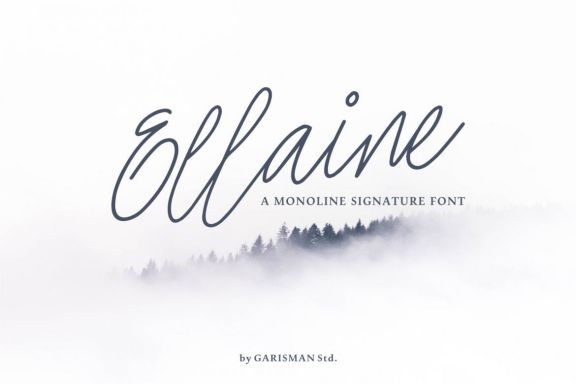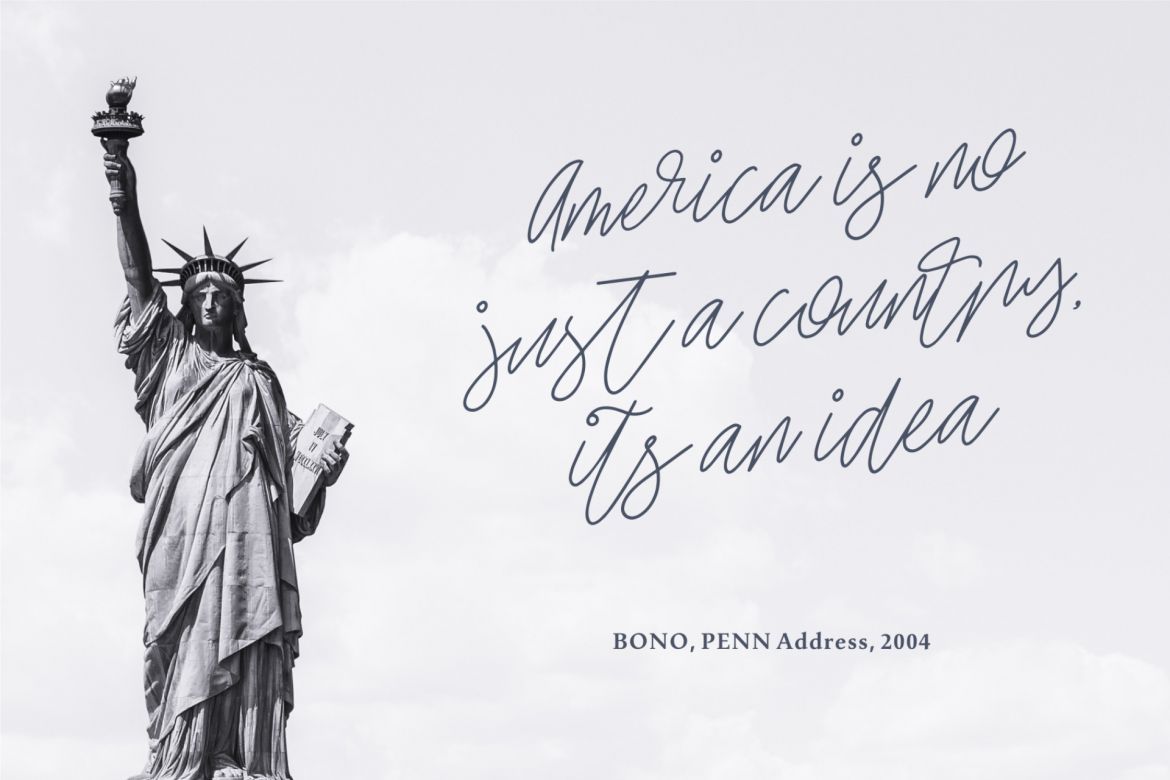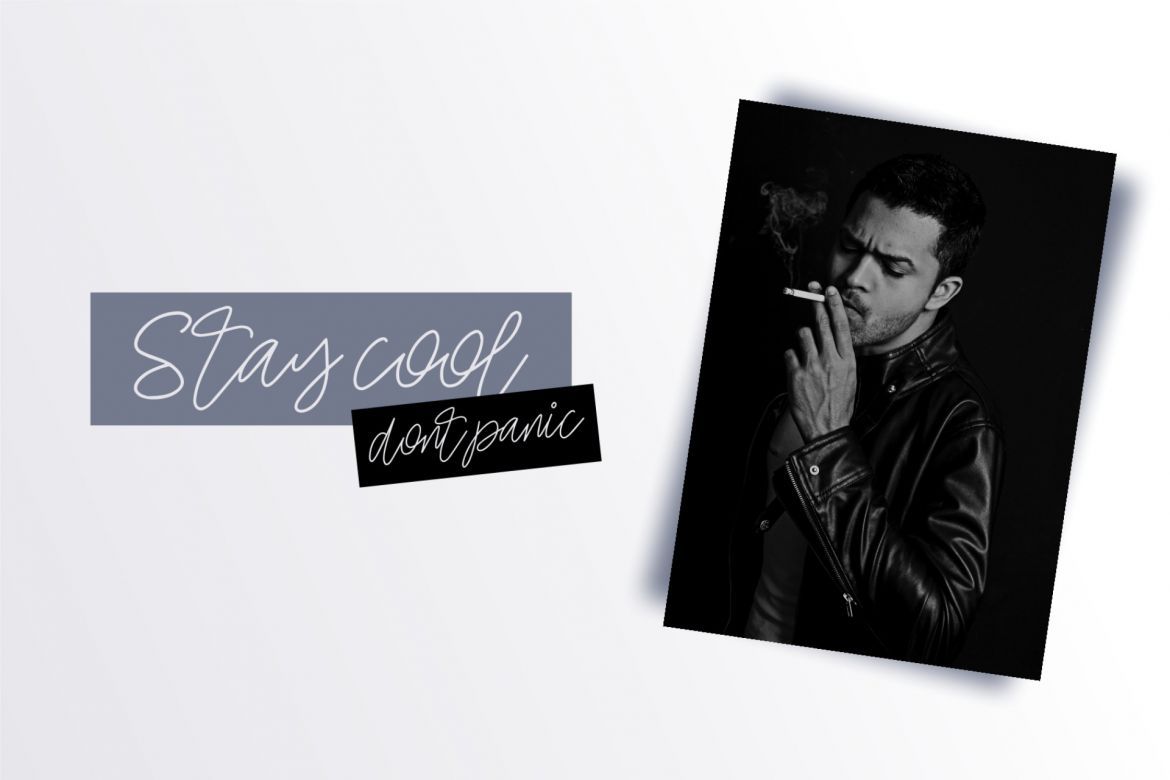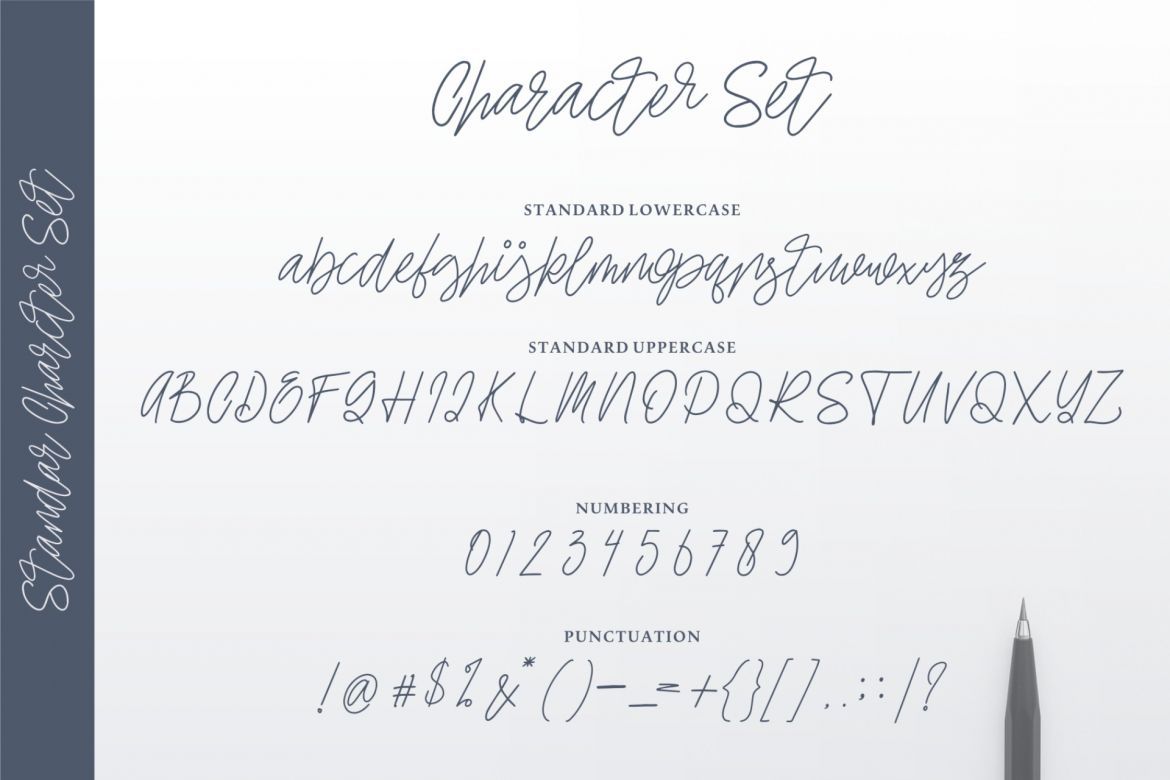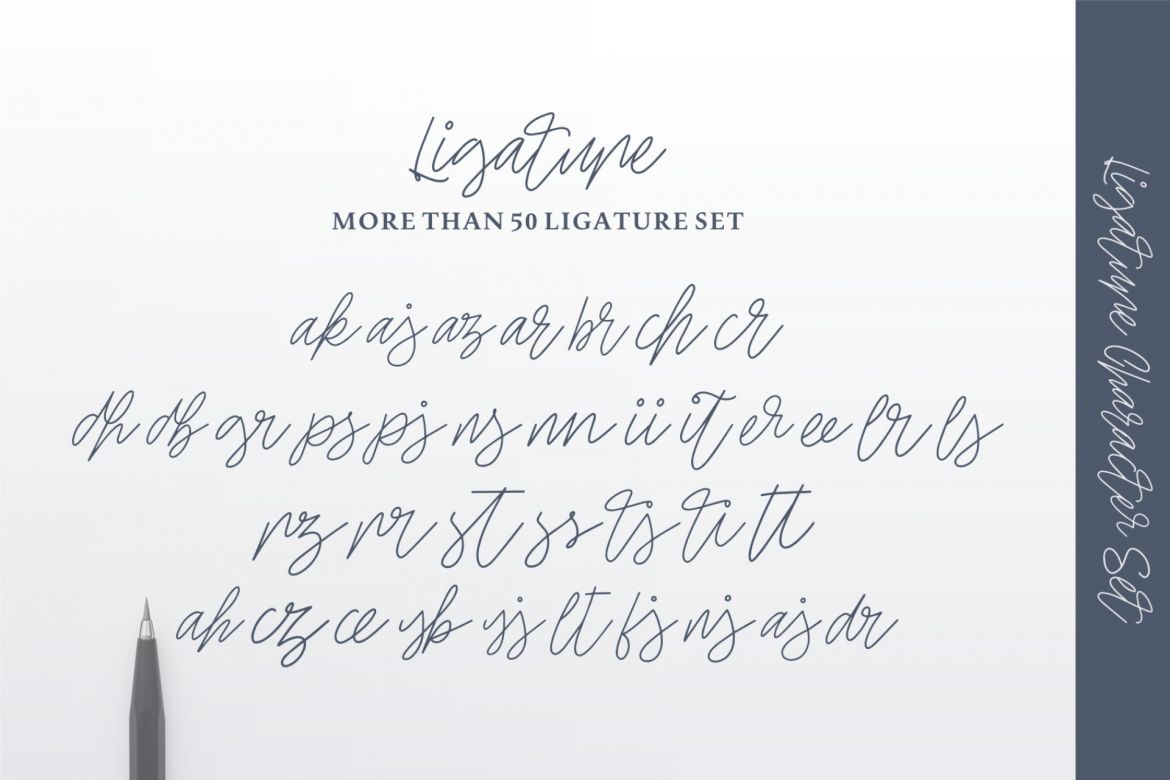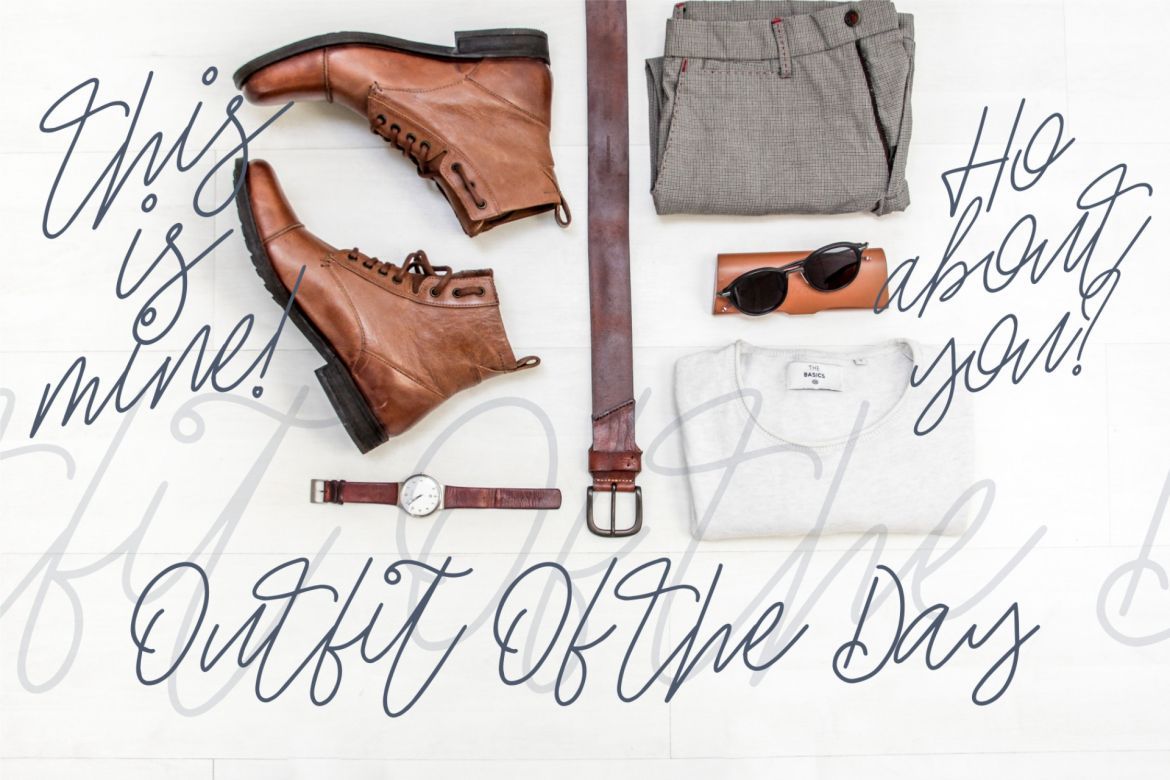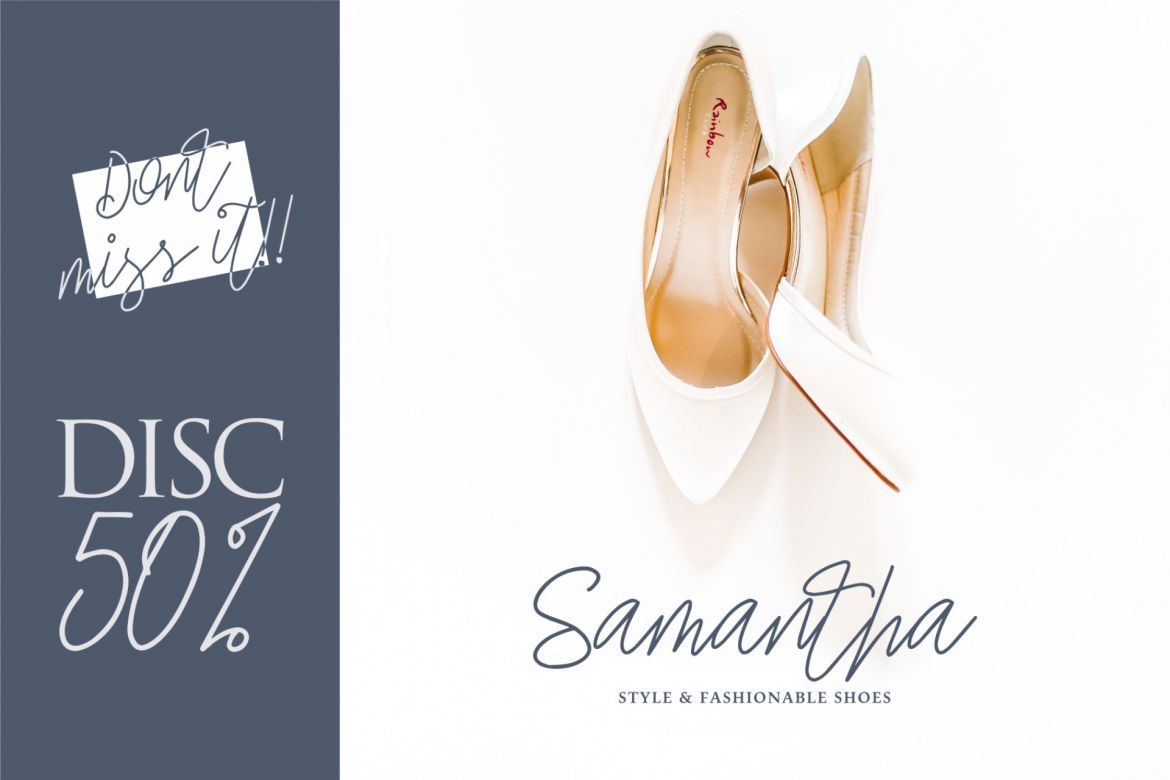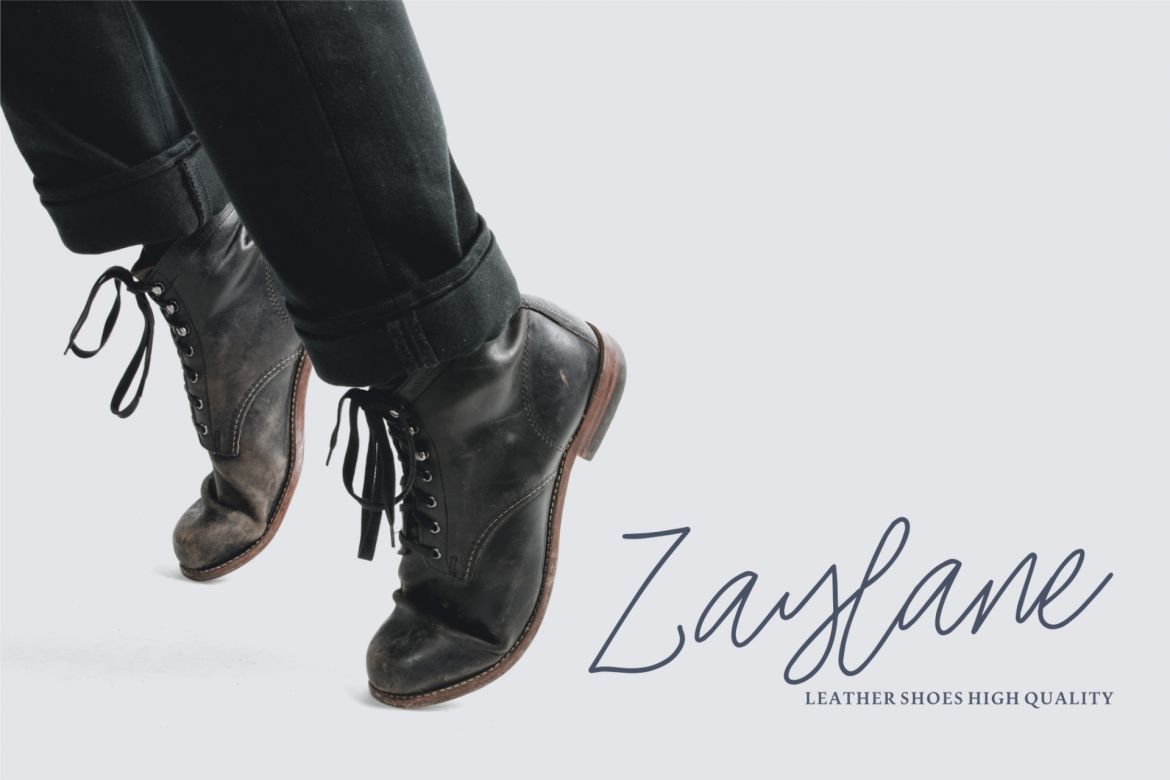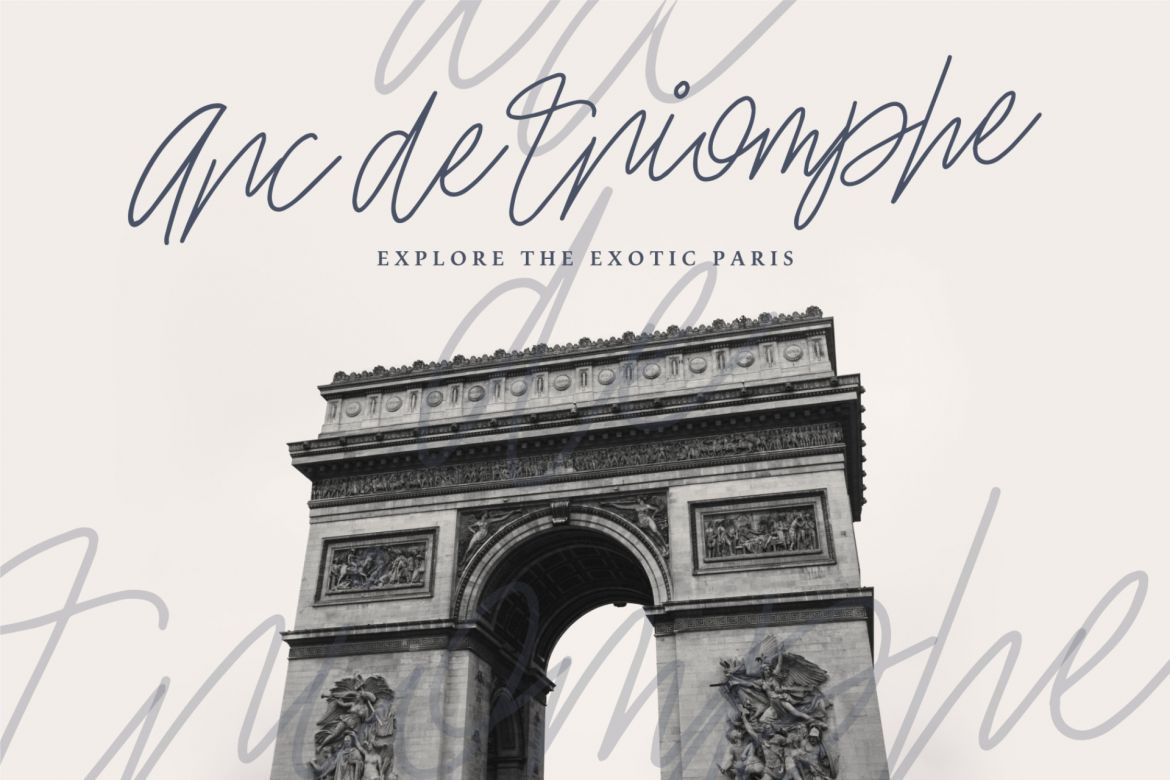
Ellain - Signature Font
Introducing Ellaine - a new signature monoline with elegant lines that makes this font perfect for imaging your personal brand and every great project, such as: logos, invitations, stationery, wedding designs, social media posts, advertisements, product packaging, product design, labels, photography, watermarks, special events, and more!
• multilanguage support (16 language)
• suitable for logo type, signature